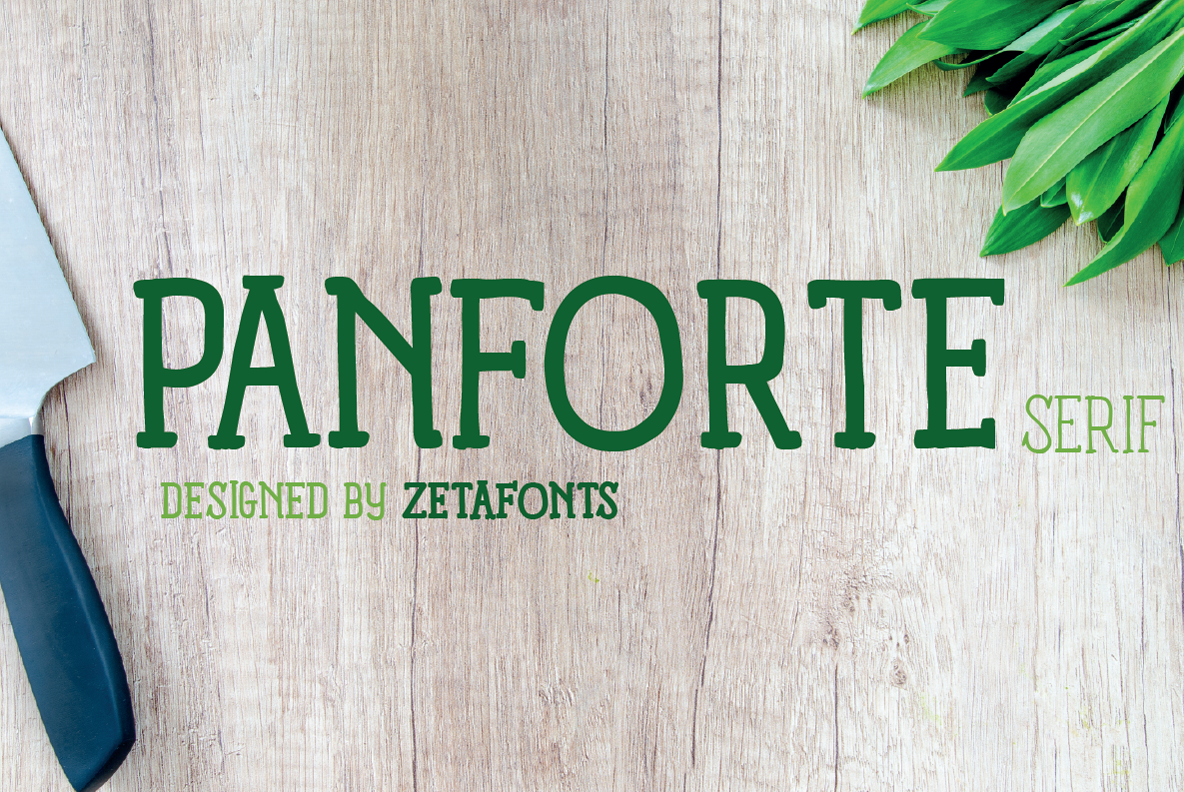
Panforte Serif - 6 fonts
Panforte Serif is the serif companion of Panforte Pro: a prime-cut font family, deliciously readable online and offline, space-saving and organic, appealing to hipster consumers and seasoned gluttons.